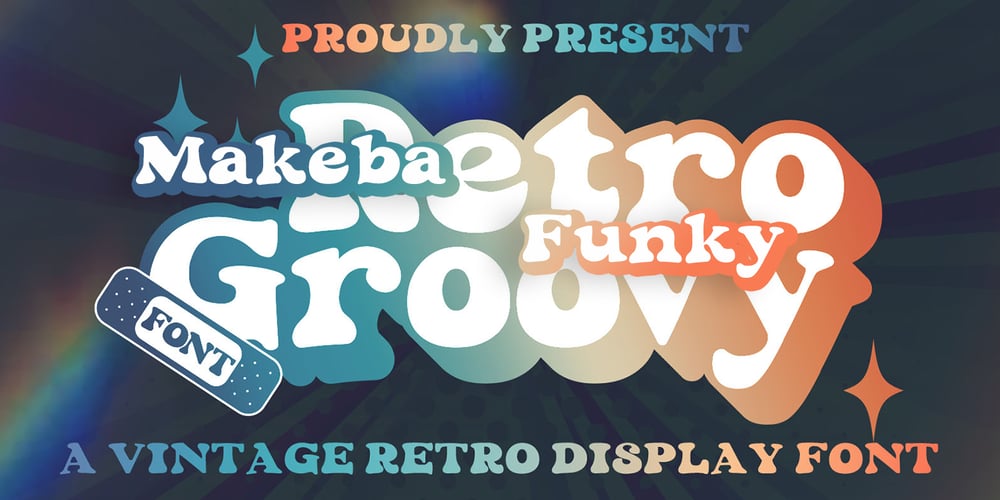
Makeba Retro Funky Groovy
Makeba Retro Funky Groovy font
Makeba Retro Funky Groovy Font Family was designed by Mohammed Lamjidi and published by Beast Designer. Makeba Retro Funky Groovy contains 1 styles and family package options. Makeba Retro Funky Groovy Font is a fun and funky display font that brings back the spirit of the 70s. Its bold, rounded letters feature groovy curves and playful embellishments that exude a retro vibe. This font is perfect for creating eye-catching titles and headlines for posters, album covers, and other retro-inspired designs. The font’s energetic and upbeat personality is sure to make any project stand out.